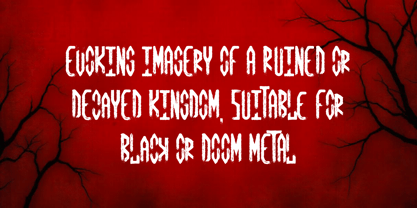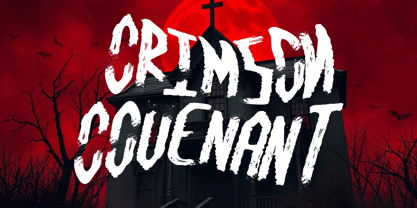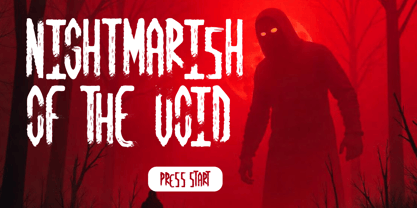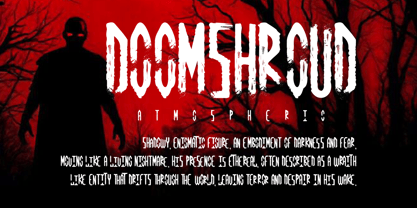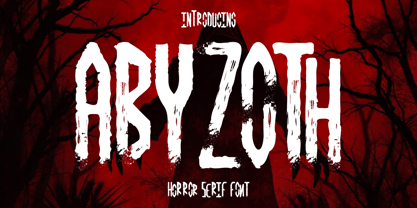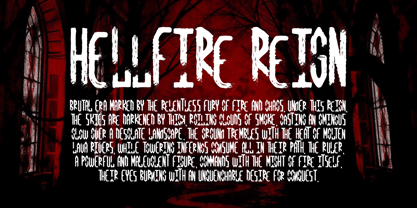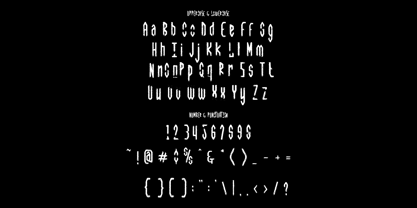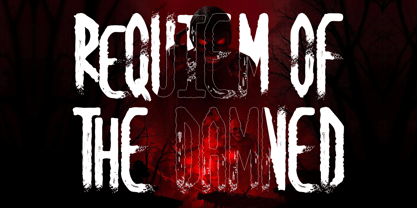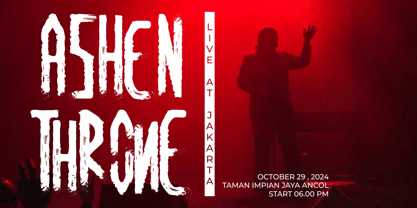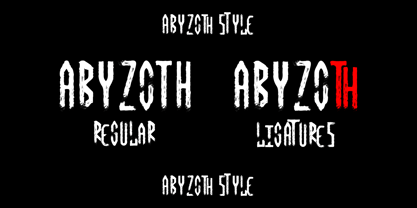
Abyzoth
The Abyzoth Font Family was designed by Putra Novembria Candra Kusuma and published by Putracetol. Abyzoth contains 1 styles.
Abyzoth - Horror Serif Font
Step into the world of chilling elegance with Abyzoth, a meticulously crafted horror serif font designed to send shivers down your spine. The font’s jagged, weathered edges and bold, rough texture evoke a raw, unsettling aura perfect for any spine-tingling project. Featuring a distinctive, hand-drawn aesthetic, Abyzoth blends the classic structure of serif typefaces with an eerie, decayed finish. The stark white lettering contrasted against a crimson, ominous backdrop in the visual example highlights its dramatic, fear-inducing qualities. Its rugged appearance makes it ideal for horror-themed graphics, haunted event posters, spine-chilling book covers, and eerie film titles. The Abyzoth font captures the essence of fear while maintaining readability, making it versatile for a variety of design needs.
The Abyzoth font brings more than just fright; it adds character to your projects. Whether you're designing Halloween invitations, creating branding for a horror podcast, or crafting suspenseful movie titles, Abyzoth’s textured strokes and gory vibes make a statement. The background in the example image, a deep red with silhouettes of twisted branches and shadowy figures, enhances the ominous feel of the font’s jagged strokes. This horror serif font fits seamlessly into themes of darkness, horror, and suspense, offering a chilling but captivating look. Let Abyzoth elevate your design projects with its blend of classic serif style and an unsettling, haunted twist.